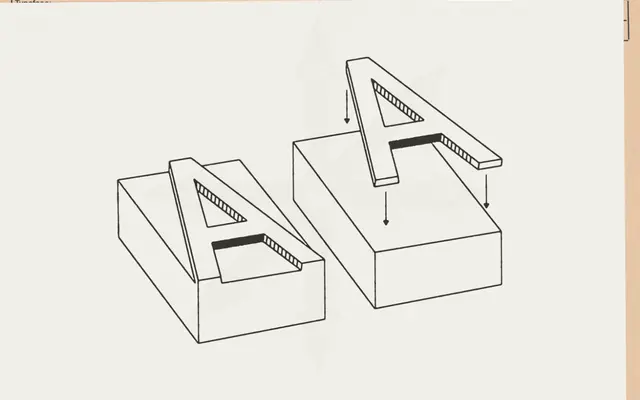
Auto Grotesk
DDOTT · Dominik Thieme · 2025
A grotesque designed by Dominik Thieme that draws on pre-Akzidenz sources and wood-type production to bring deliberate irregularity and a variable pressure axis to digital type.
Conceived as a wood type for letterpress, the family references early nineteenth-century sans serifs including Bauer & Co.'s Cirkular Grotesk and Weisert's Breite Fette Grotesk, with each of the twelve styles drawn individually to preserve idiosyncratic rhythms. Two subfamilies, Auto Grotesk A and B, each offer six weights from Light to Extrabold, and variable axes of weight and pressure let designers control how much the letterforms appear to squish under ink. The mixing of rectangular and circular forms, combined with deliberately dialled-back optical corrections, gives the typeface a lively, unconventional cadence rarely found in contemporary grotesques.
Rooted in pre-Akzidenz grotesque sources such as Cirkular Grotesk and Breite Fette Grotesk, Auto Grotesk sits firmly in the nineteenth-century grotesque tradition, distinguished by intentionally naïve irregularities and a variable pressure axis that mimics letterpress ink squash.